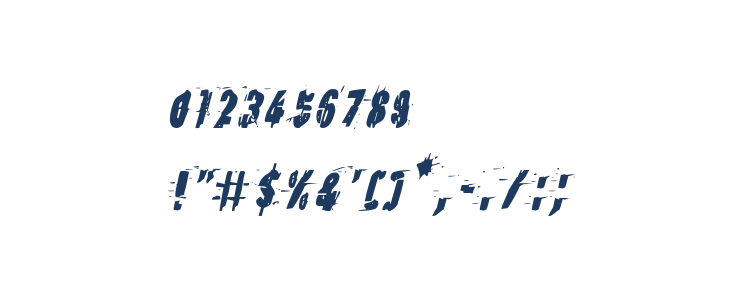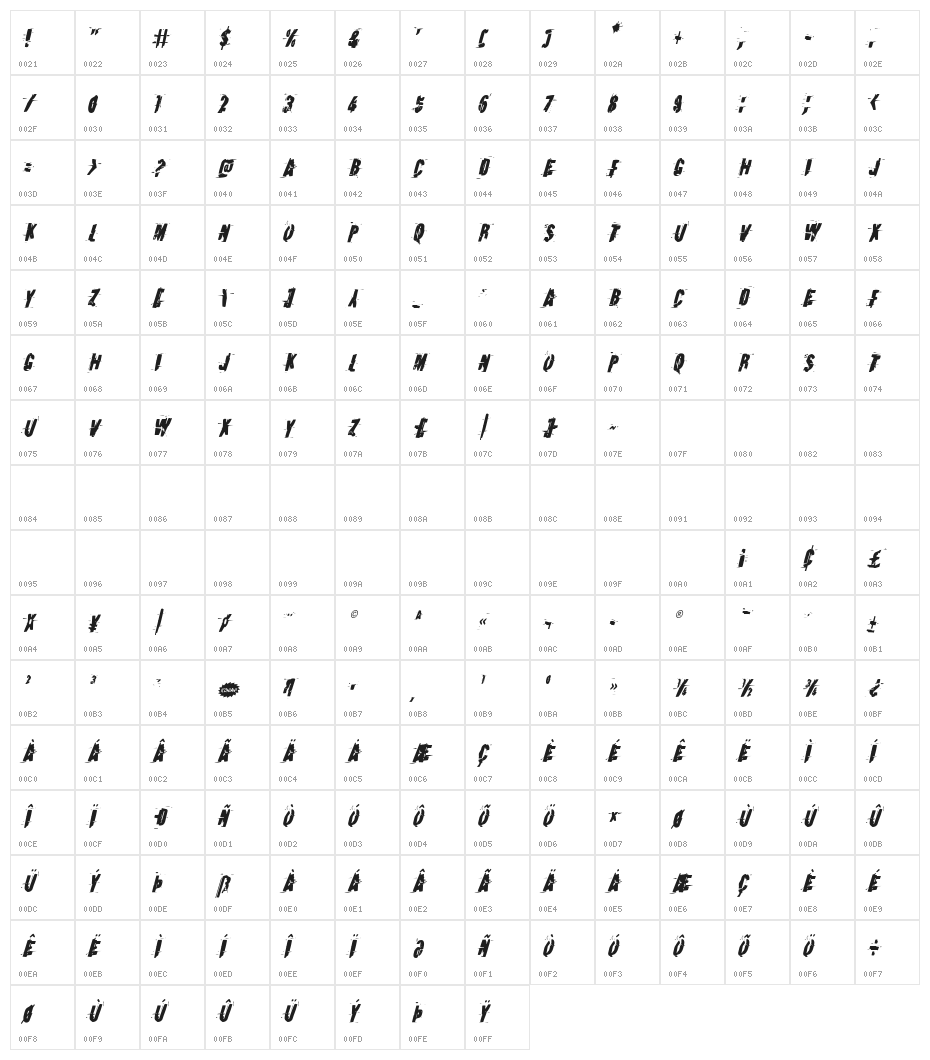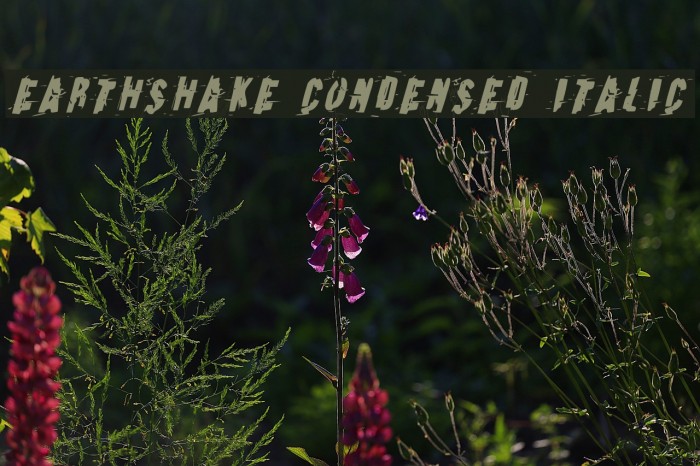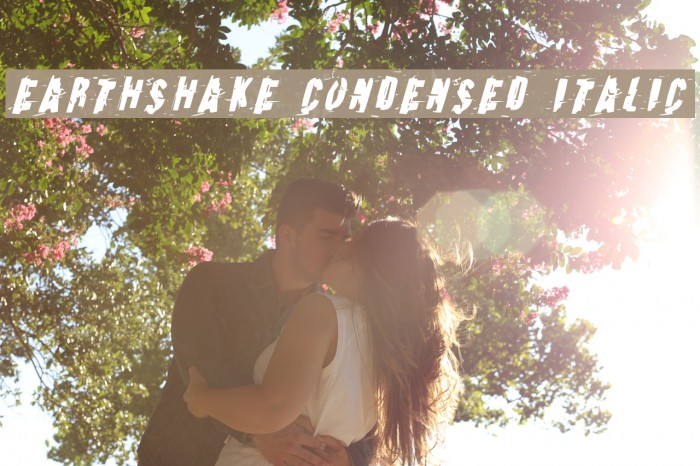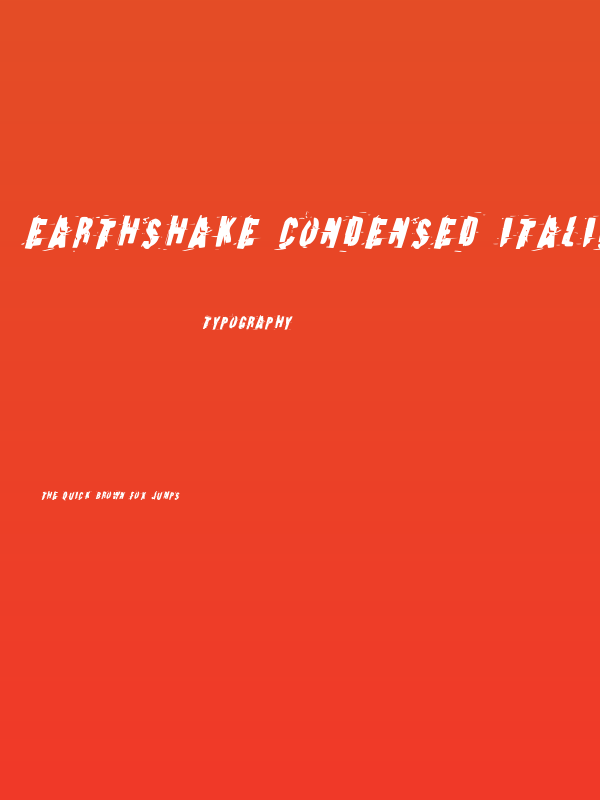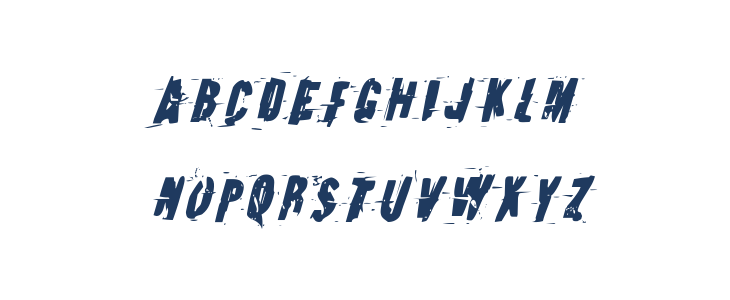
Earthshake Condensed Italic Font
Earthshake Condensed Italic Description
This font features a bold, distressed style with a condensed width and italic slant. The characters are heavily textured, giving a rugged and dynamic appearance. The strokes are thick, with irregular edges that create a sense of movement and energy. The uppercase and lowercase letters maintain a consistent style, while the numerals and special characters complement the overall design. This font is ideal for projects that require a bold statement or a grunge aesthetic.
| Proposed Projects | Perfect for music album covers, event posters, urban-themed designs, and branding that requires a bold, edgy look. |